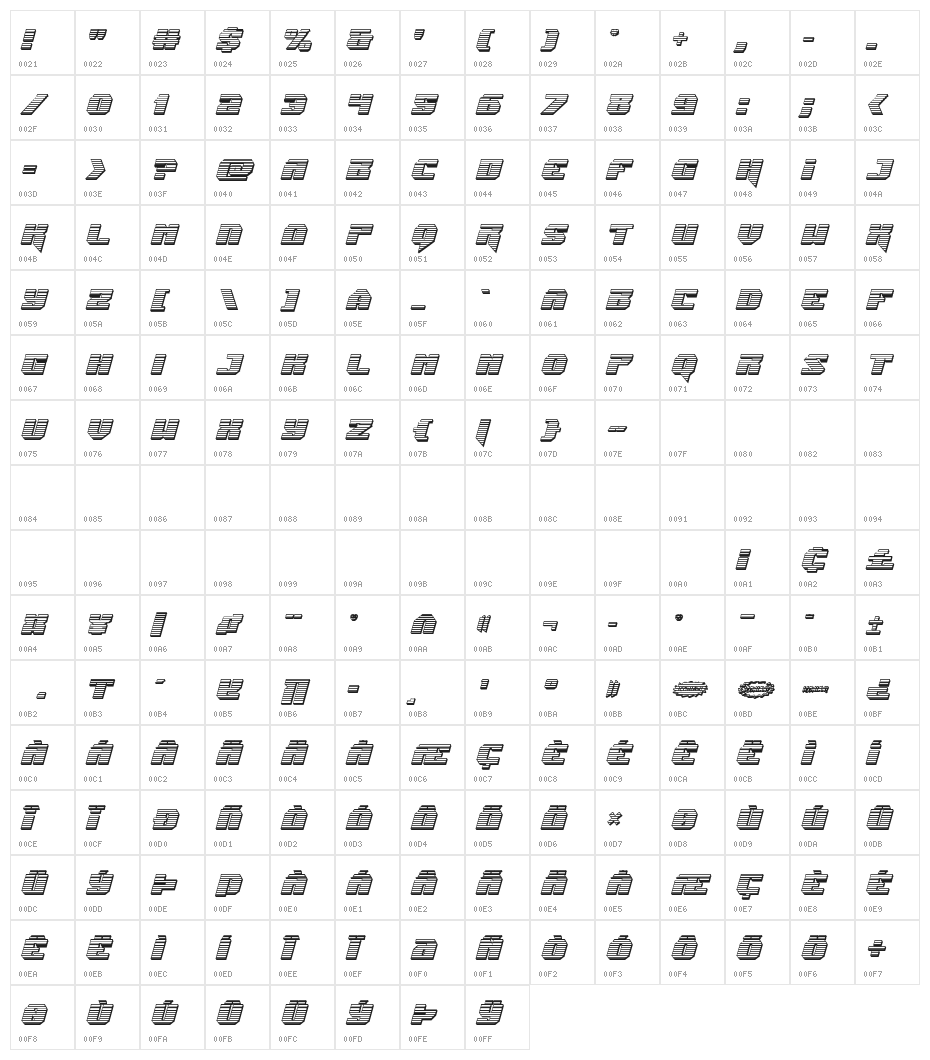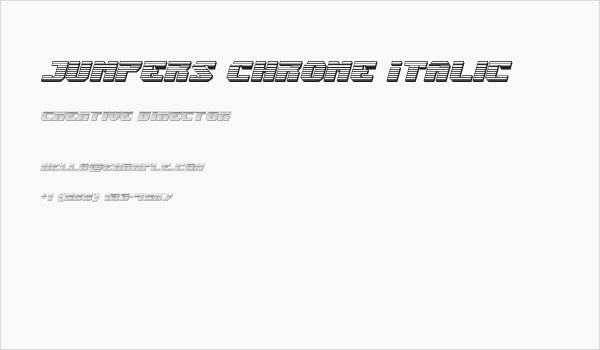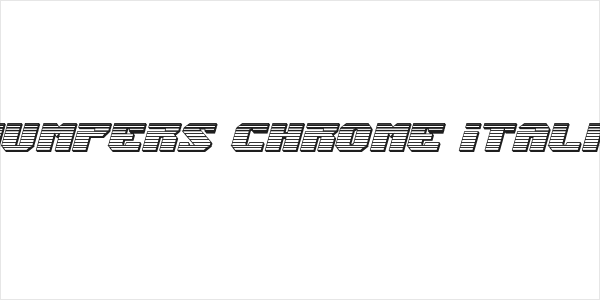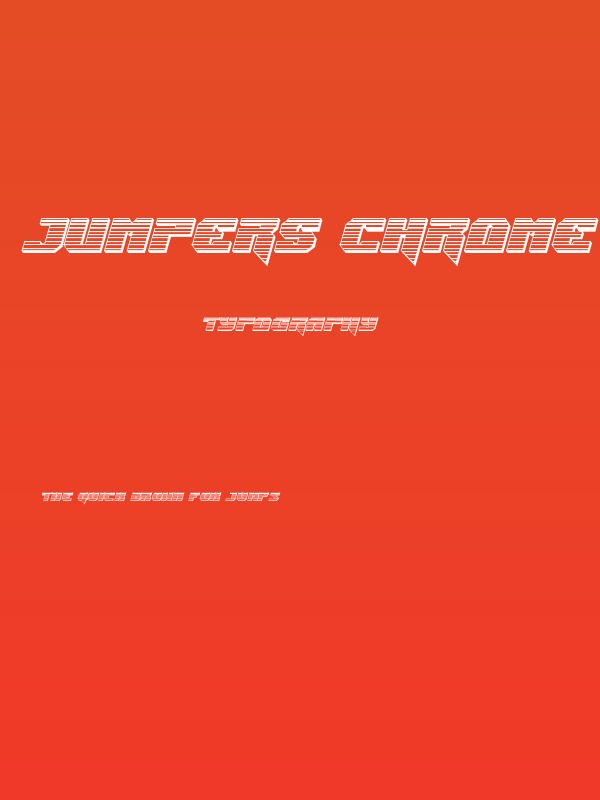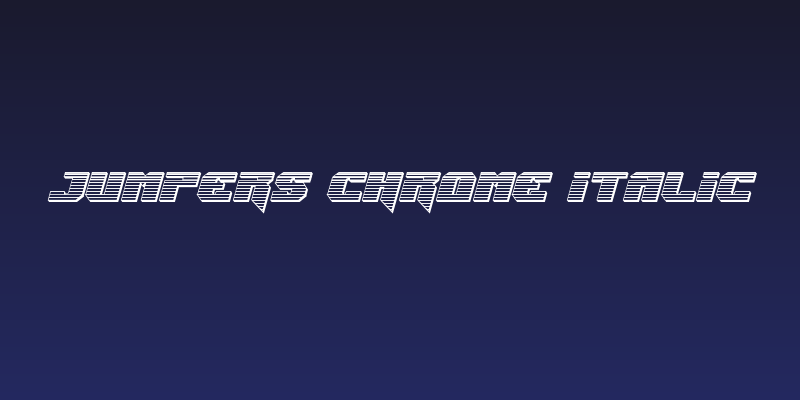
Jumpers Chrome Italic Font
Jumpers Chrome Italic Description
This font features a bold, futuristic design with a distinct three-dimensional effect created by parallel lines running through each character. The italicized slant adds a dynamic and energetic feel, making it stand out. Each letter is constructed with precision, showcasing a geometric style that is both modern and eye-catching. The uppercase and lowercase letters maintain consistency in style, while the numerals and special characters complement the overall aesthetic. This font is ideal for projects that require a strong visual impact and a sense of movement.
| Overall Style | Futuristic, Dynamic |
| Proposed Projects | Ideal for sci-fi themed designs, video game titles, posters, and branding that requires a modern and dynamic look. |